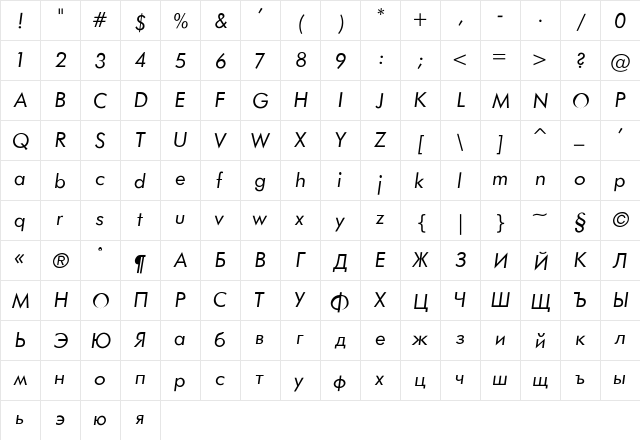
Futura_Book-Normal-Italic Regular
Design Context for Futura_Book-Normal-Italic Typeface
Futura_Book-Normal-Italic channels digital-age aesthetics through its sharp, structured letterforms — ideal for brands that want to signal innovation. The slanted form adds forward momentum and visual energy.
Pro Tip: Try Futura_Book-Normal-Italic with generous letter-spacing in UI labels and navigation — the geometric forms benefit from room to breathe.